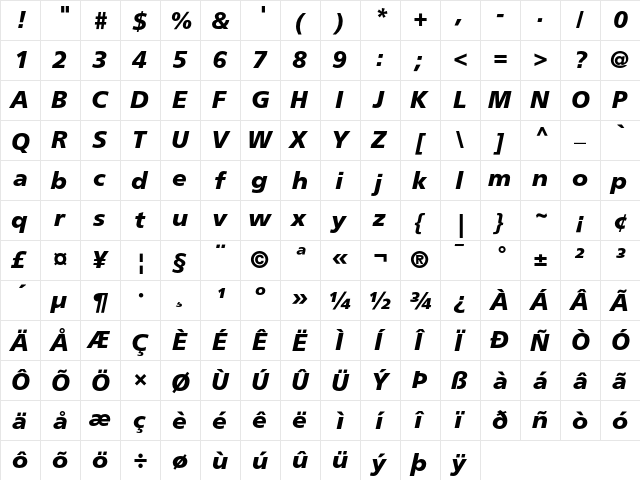
Frutiger 76 Black Italic
Design Context for Frutiger Typeface
Frutiger takes a measured approach to typography — its balanced proportions and neutral character make it a reliable workhorse for both digital and print work. The dynamic lean of this cut emphasises speed and emphasis in any layout.
Pro Tip: Use Frutiger for emphasis, pull quotes, and subheadings where its slanted energy can add rhythm to the layout.